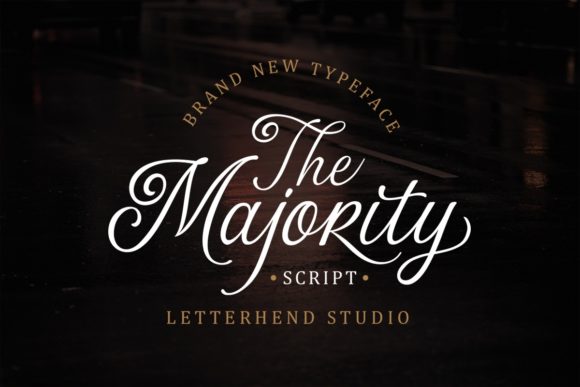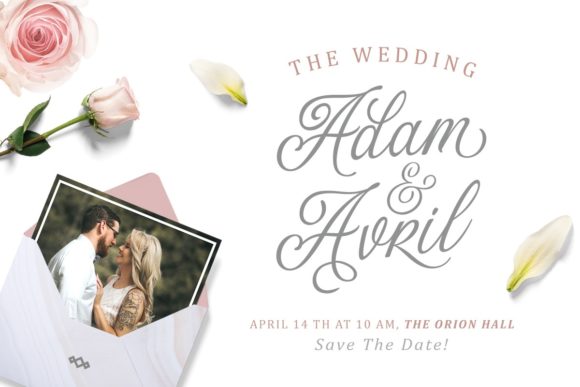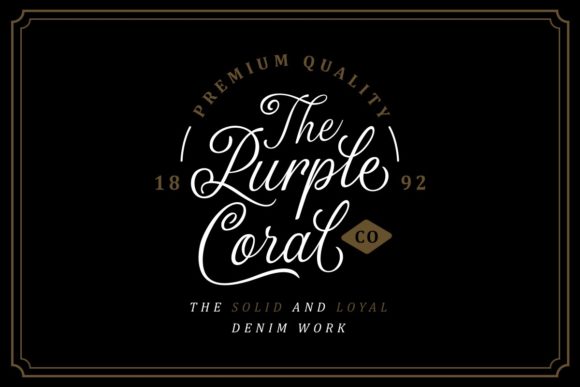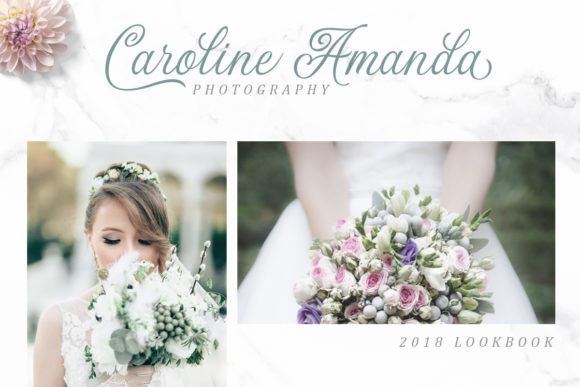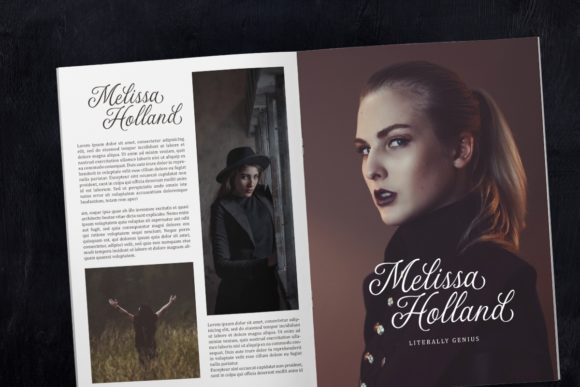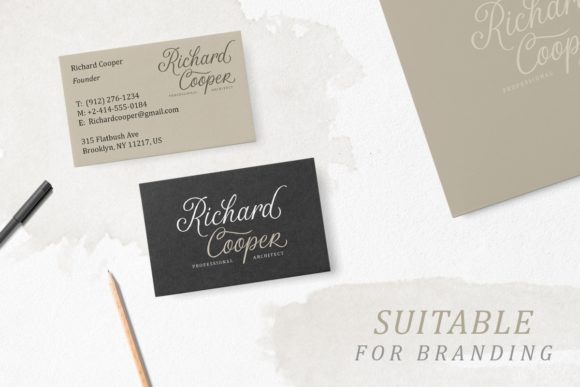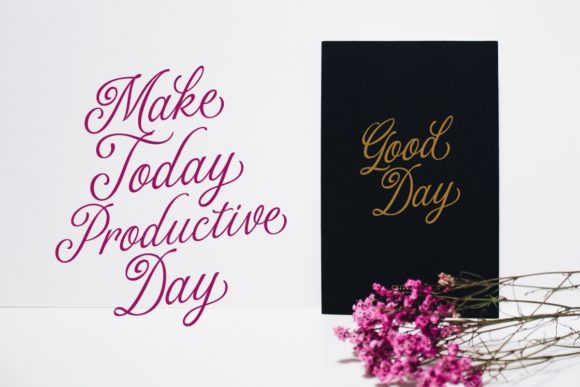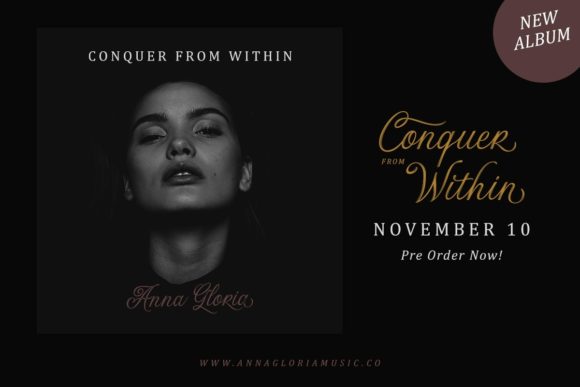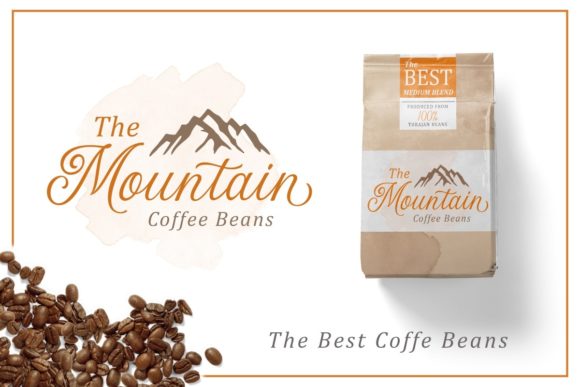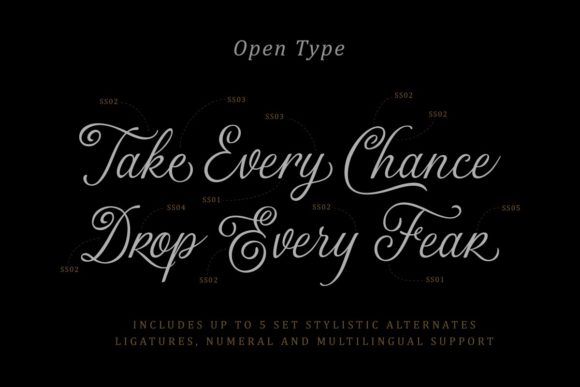
The Majority Font
About The Majority Font
The Majority is a friendly and modern script font with a unique style. It will add a romantic touch to any crafting project!